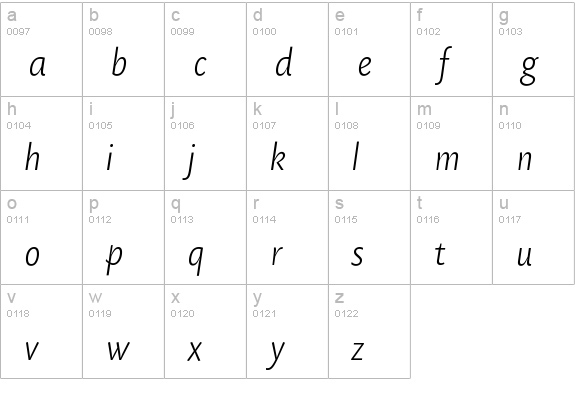
Today Sans Serif Light Italic Font Details
Today Sans Serif Light Italic is a refined, elegant, italic variant in the Today typeface family \xE2\x80\x94 well suited to elegant body text, refined sub-headings, and luxury branding.
Today Sans Serif Light Italic is a modern and elegant typeface that exudes sophistication and professionalism. Its sleek and clean lines, combined with a touch of italic flair, make it the perfect choice for those looking to add a touch of style to their designs. This font's light weight adds an airy and delicate feel, making it perfect for projects that require a subtle and refined touch. Whether it's used for headings, body text, or logos, Today Sans Serif Light Italic will effortlessly elevate any design and give it a polished and contemporary look. And the best part? Today Sans Serif Light Italic is available for free! Yes, you heard it right. This font can be freely downloaded at FontsMarket.com, a trusted online resource for a wide range of high-quality fonts. So, whether you're a professional designer or simply someone looking to add a touch of sophistication to your personal projects, Today Sans Serif Light Italic is just a click away. So don't miss out on this fantastic opportunity to enhance your designs with a sleek and stylish font that is both elegant and free. Download Today Sans Serif Light Italic today and let your creativity soar.